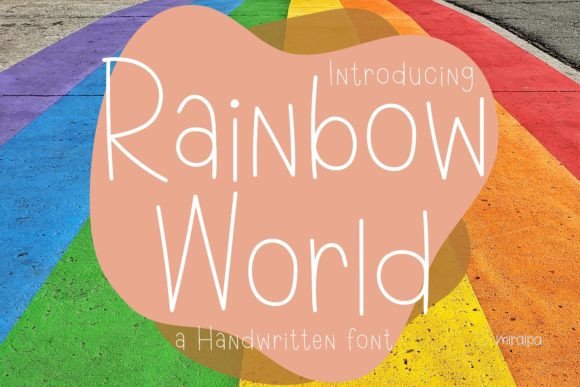
Rainbow World Font
Dive into the world of creativity and imagination with Rainbow World Font, a playful and enchanting script font family designed by miraipa. This magical font, perfect for any children's activity or school project, captures the essence of youthfulness and authenticity like no other.
Imagine your little ones' faces light up as their stories, poems, and schoolwork come to life in vibrant, flowing letters that dance across the page. Rainbow World Font adds a touch of whimsy to any project, turning ordinary words into extraordinary works of art.
With its charmingly imperfect lines and delightfully free-spirited style, Rainbow World Font exudes personality and warmth, making it the perfect choice for projects that aim to capture the innocence and joy of childhood. Let your creativity soar as you explore the endless possibilities of expression with this enchanting font family.
Bring your creative visions to life with Rainbow World Font. Embark on a journey of storytelling, illustration, and design, where every letter becomes a stroke of genius and every project a masterpiece. Let the playful spirit of Rainbow World Font guide your imagination and transport you to a world where dreams and colors collide in perfect harmony.